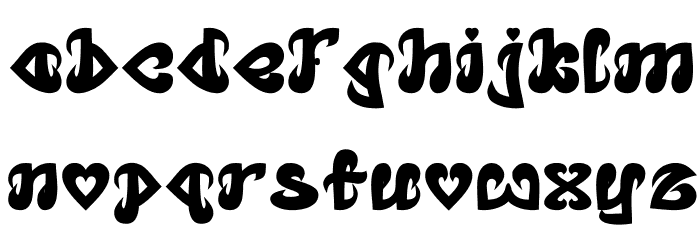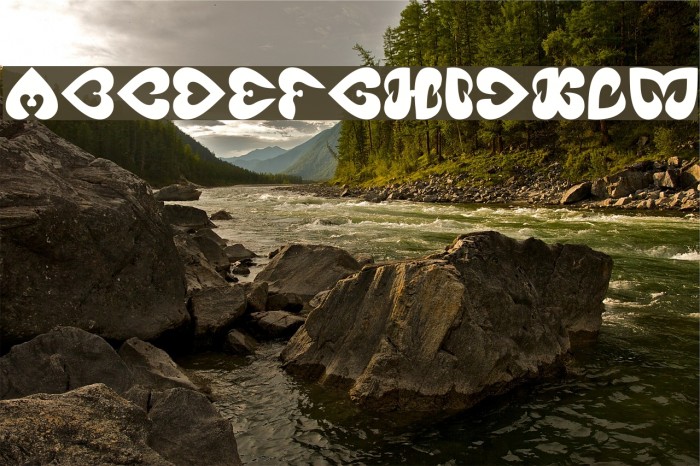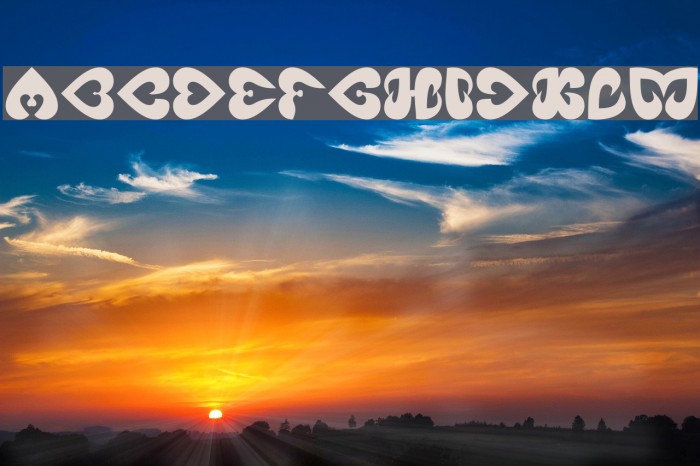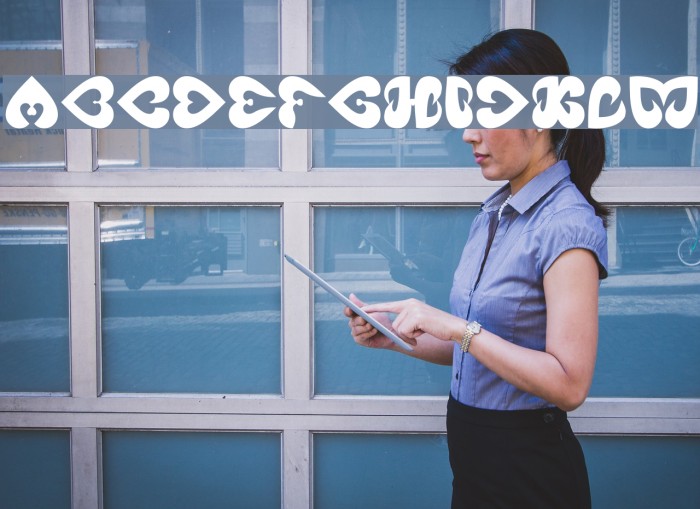
Eternal Love Bold Font
This font features a bold and playful design with heart-shaped elements integrated into each character, creating a whimsical and romantic feel. The letters are thick and rounded, with a consistent stroke width that gives a sense of uniformity and balance. The uppercase and lowercase letters maintain a cohesive style, while the numbers and special characters follow the same decorative theme. The font's unique style makes it stand out, perfect for projects that require a touch of love and creativity.
A bold, heart-themed decorative font with a playful and romantic style.
- Proposed Projects: Ideal for Valentine's Day cards, wedding invitations, romantic event posters, and love-themed merchandise.